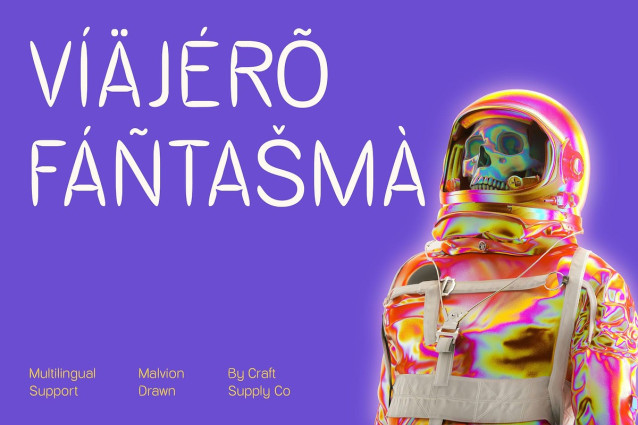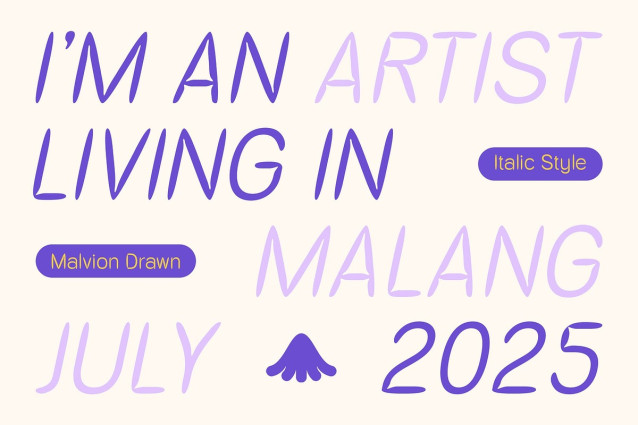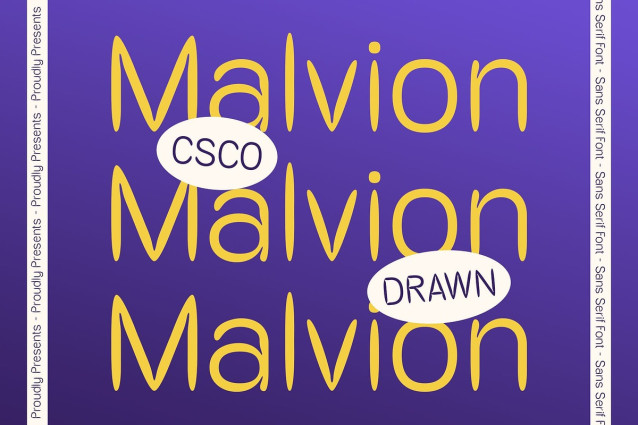
Malvion Drawn Font
Malvion Drawn Font is a modern sans serif font designed with a clean, geometric build and distinct inktrap details. These inktraps not only serve a technical function—improving legibility at small sizes—but also create a subtle visual rhythm that makes the font feel both smart and stylish. Its precise form conveys a contemporary and professional tone, ideal for modern design environments.
Drawn Effect Adds Organic Texture To soften its structured geometry, Malvion Drawn features a hand-drawn texture that introduces imperfect, expressive strokes. This drawn effect brings an organic warmth to the font, making it feel more human, tactile, and creative. The result is a seamless blend of technical sophistication and artistic flair.
Balanced Between Clarity and Character Malvion Drawn is both clear and characterful, offering a balanced tone that feels rational yet expressive. It stands out with its combination of sharp edges and natural texture, giving it a versatile quality that works across digital and print settings. This makes it well-suited for interface design, editorial headlines, posters, or progressive branding work.
Ideal for Innovative, Non-Rigid Design Whether you’re working on tech-forward branding, digital applications, or experimental layouts, Malvion Drawn offers a fresh typographic voice. It’s perfect for projects that aim to be clean but not sterile, modern but not cold—a font that champions clarity with individuality.